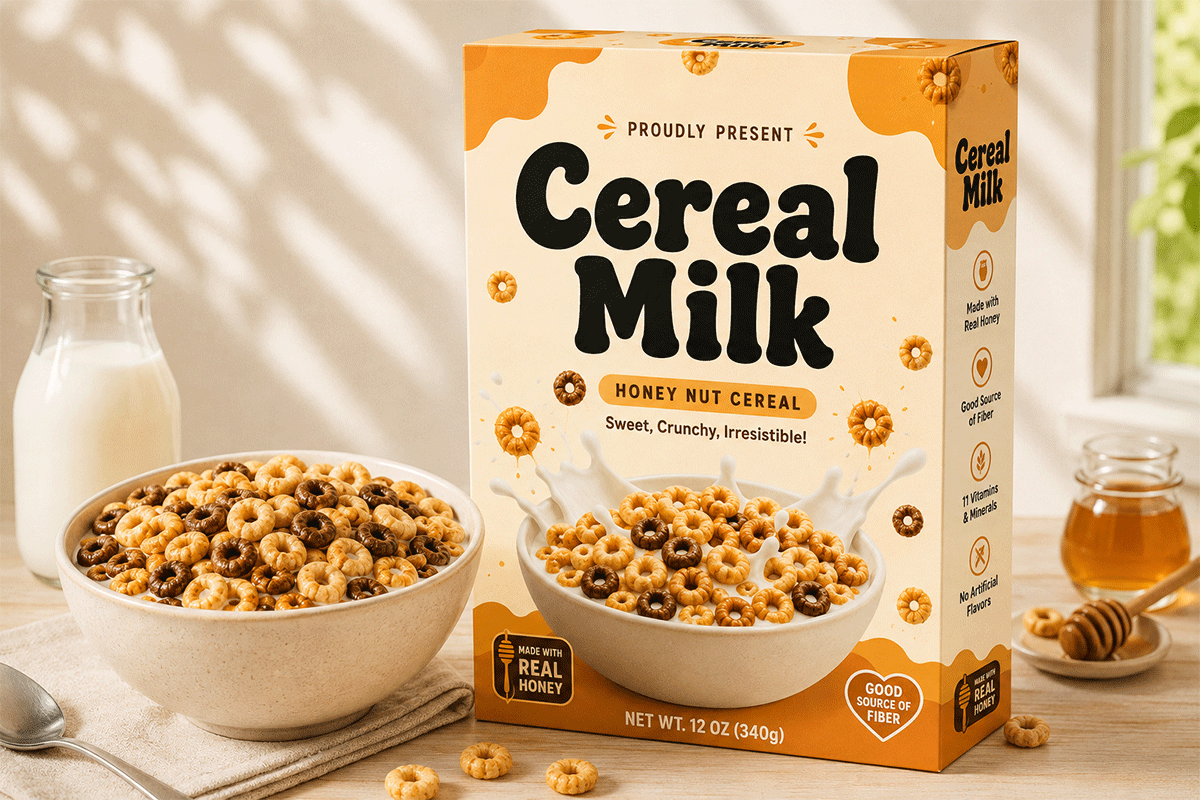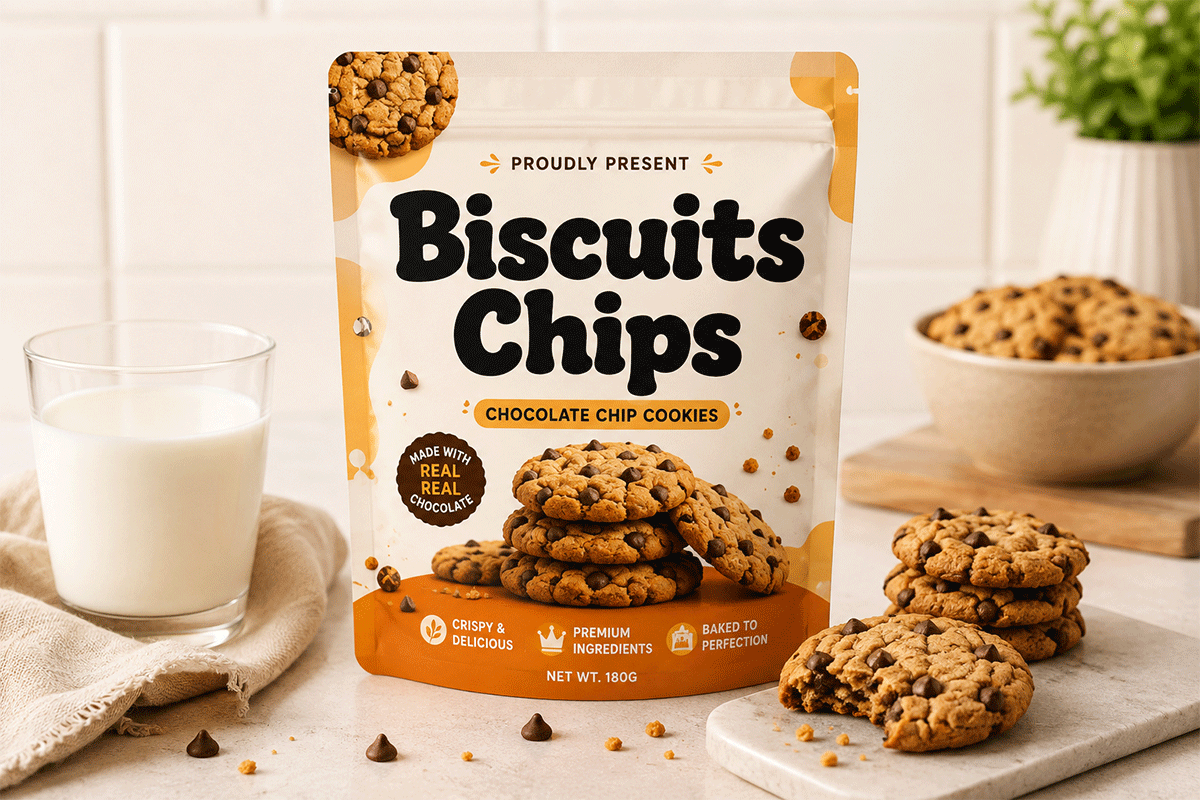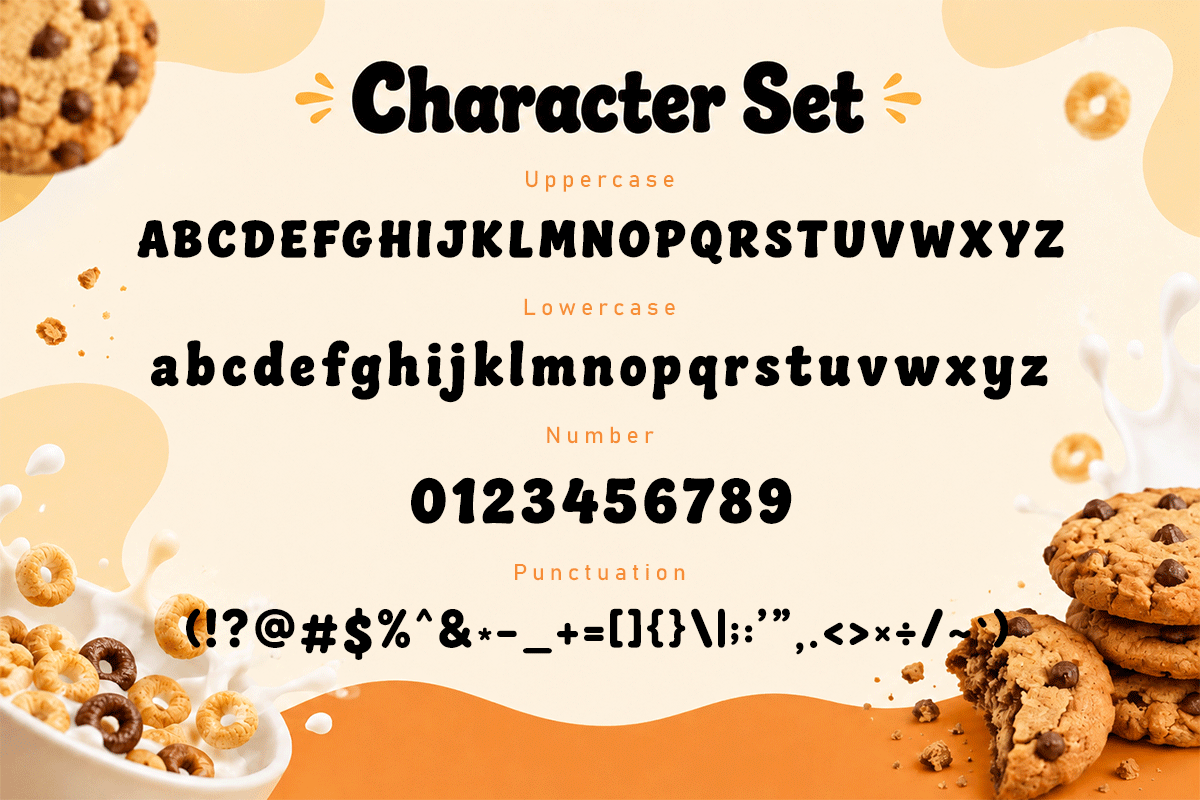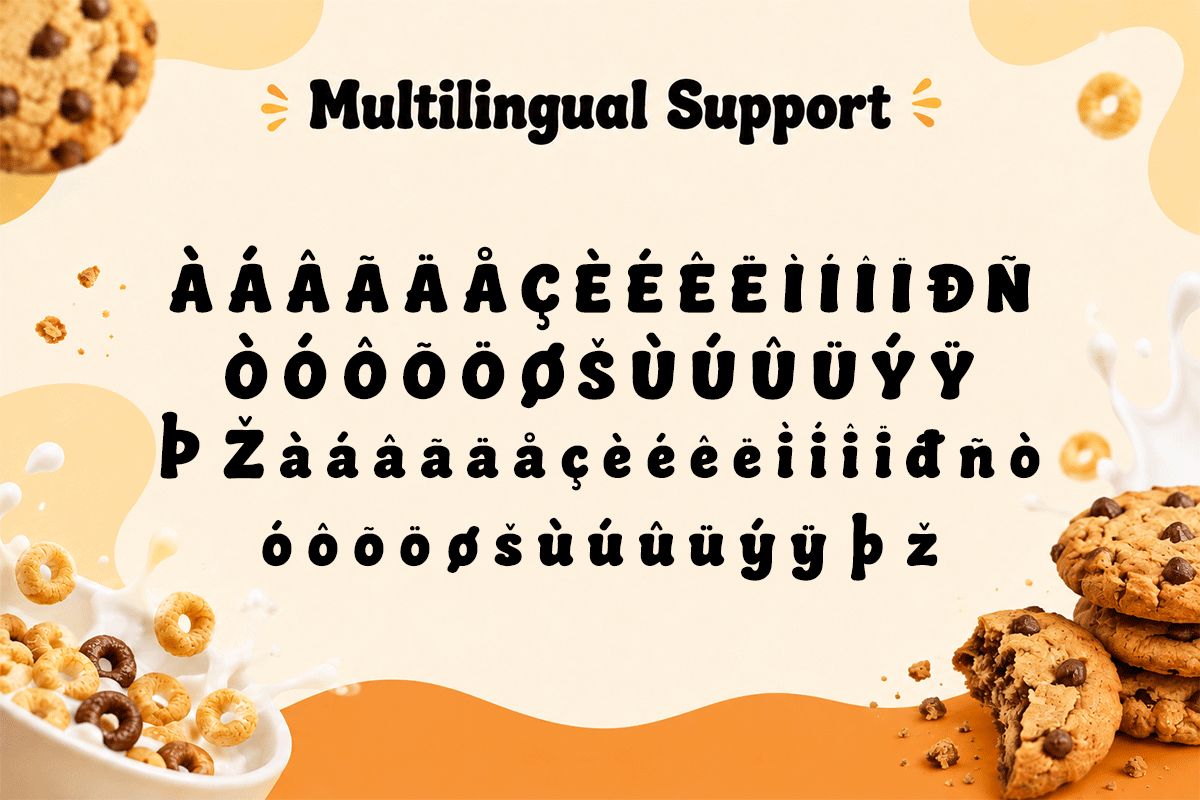
Crunchy Delight A Modern Bubbly Font
Crunchy Delight A Modern Bubbly Font is a fun bubbly display font featuring thick, rounded letterforms and a soft, friendly character. Its bold shapes and playful curves create an eye-catching look that feels cheerful, tasty, and full of energy.
Inspired by sweet snacks, cereal packaging, cookies, and colorful kids’ products, Crunchy Delight A Modern Bubbly Font Delight is perfect for food branding, snack packaging, bakery logos, children’s designs, posters, stickers, product labels, social media graphics, T-shirts, menus, and playful advertising.
The chunky construction gives your headlines strong visual impact while keeping the overall style approachable and easy to read. It works especially well for designs that need a cute, delicious, fun, and youthful atmosphere.
Crunchy Delight A Modern Bubbly Font is a great choice for designers who want to create memorable branding and display typography with a warm, bubbly, and instantly lovable feel.